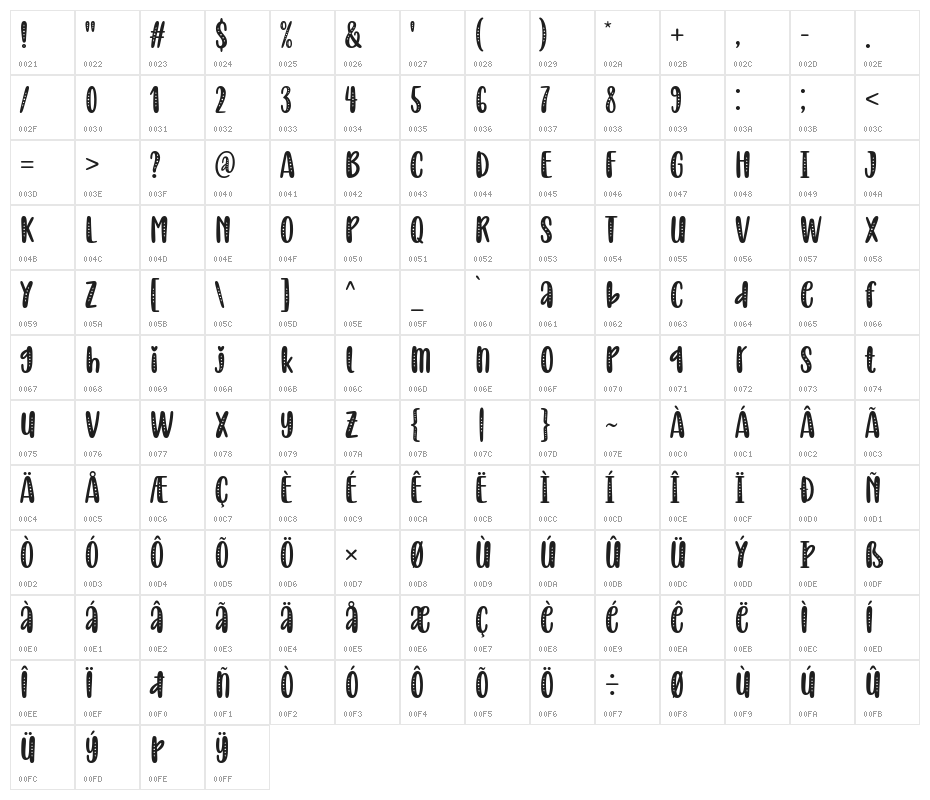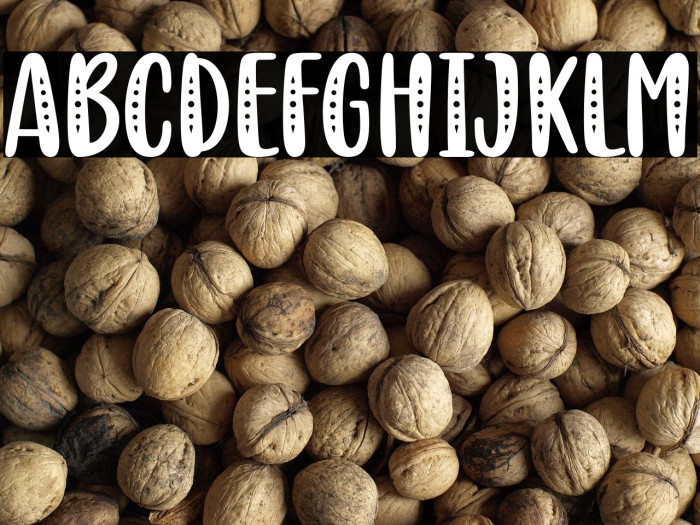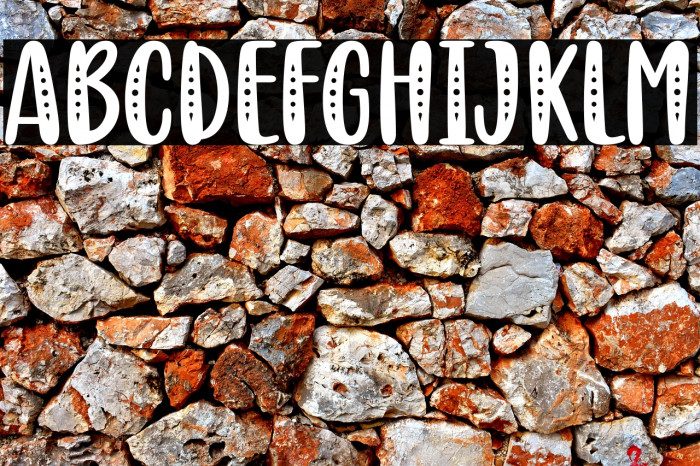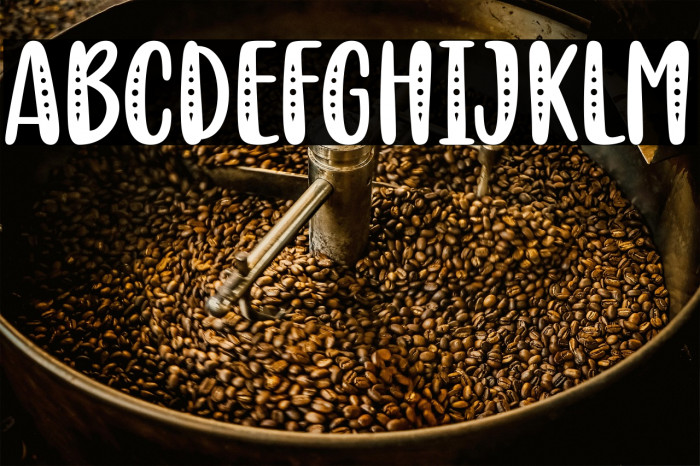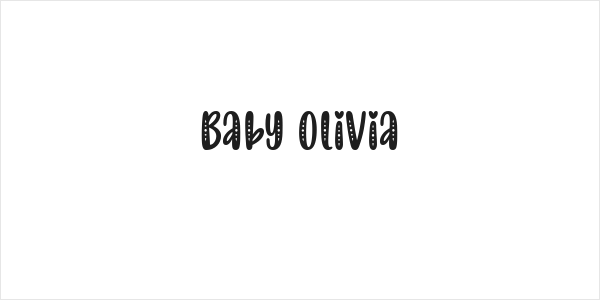
Baby Olivia Font
Baby Olivia Description
This playful and whimsical font features bold, rounded characters with a unique dotted pattern inside each letter. The uppercase and lowercase letters maintain a consistent style, offering a sense of fun and creativity. The numbers and special characters follow the same design, making the font versatile for various uses. Its bold and decorative nature makes it stand out, perfect for projects that require a touch of personality and charm. The font's style is reminiscent of hand-drawn lettering, adding a personal and friendly touch to any design.